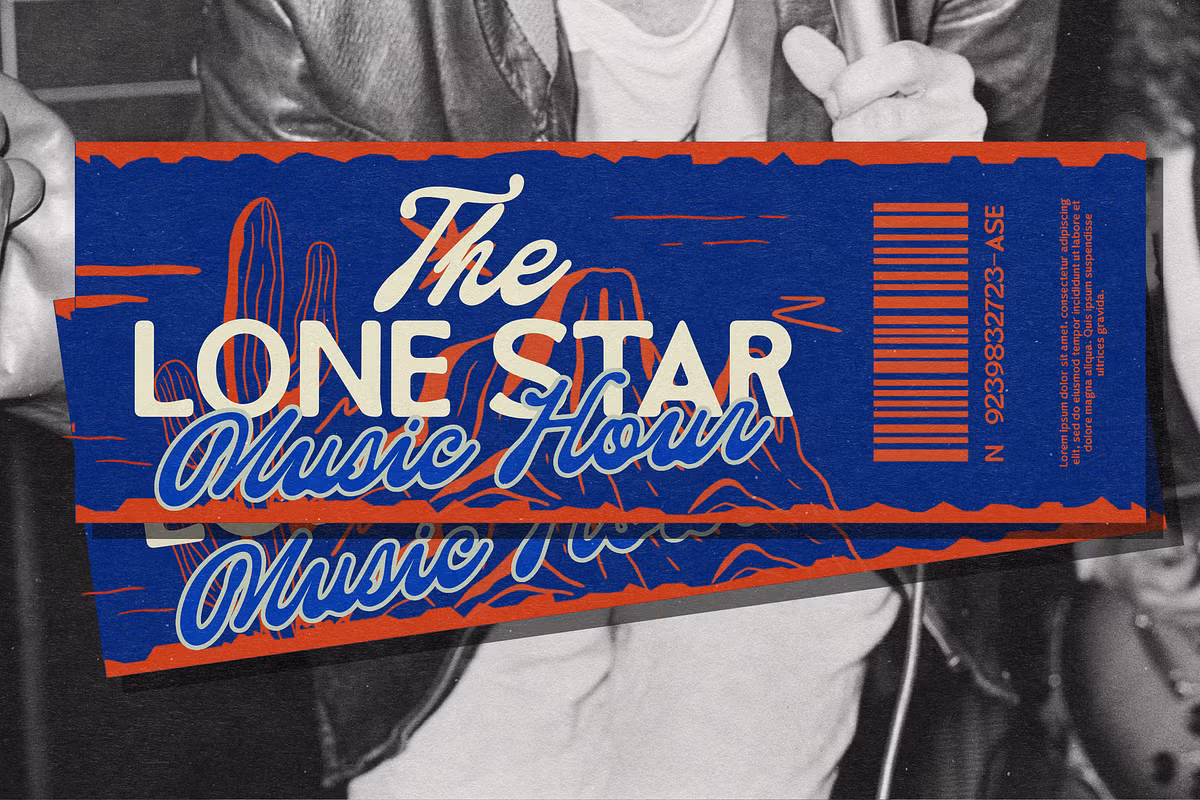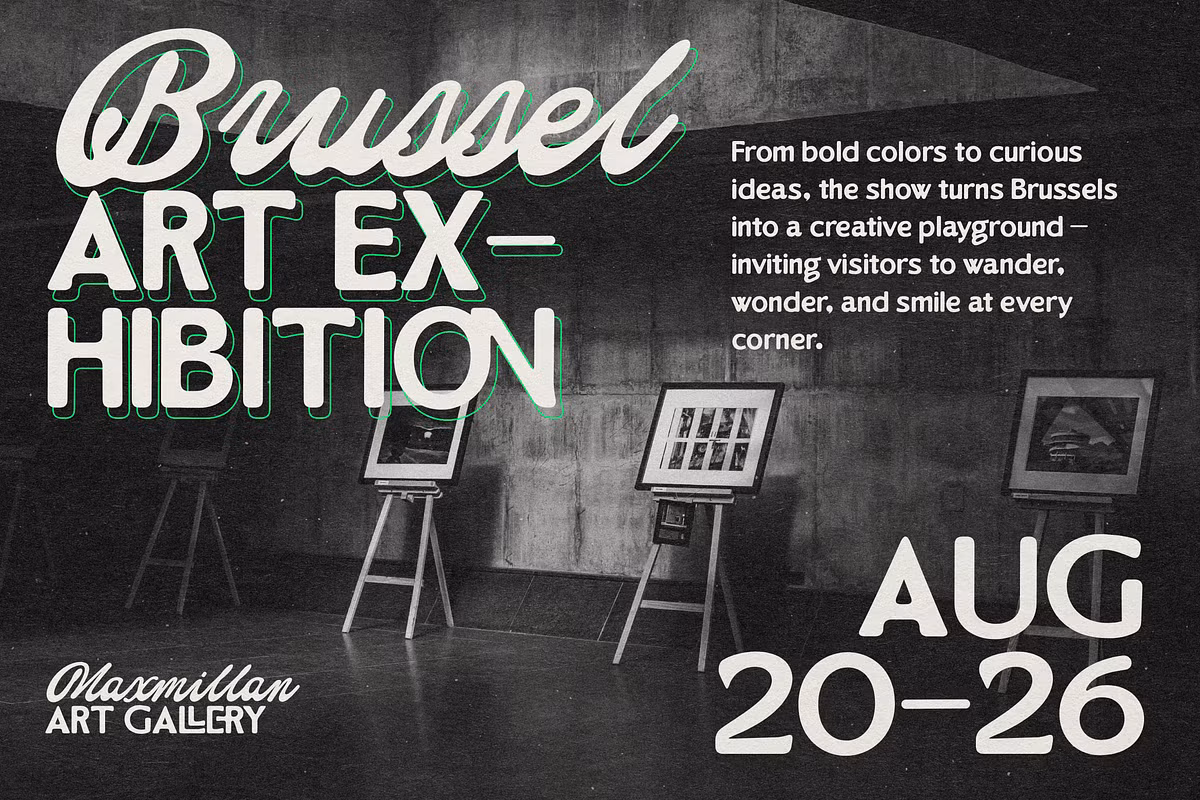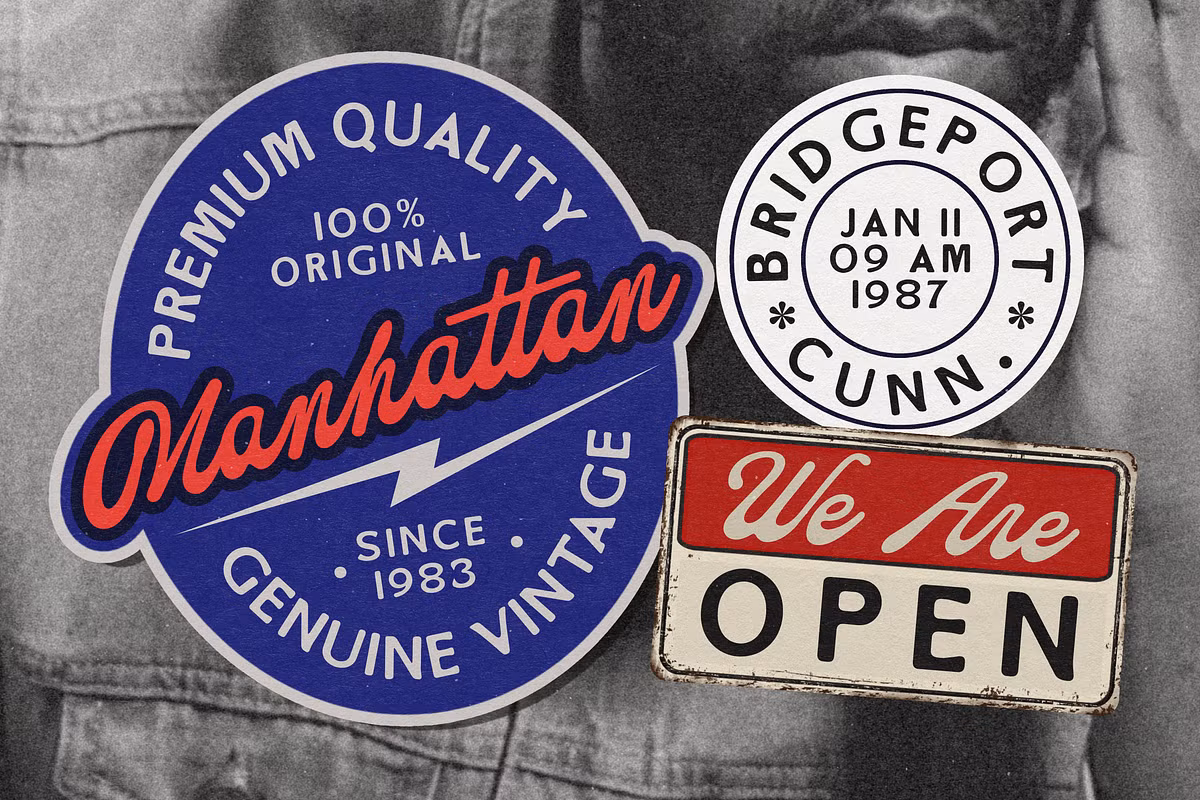
The Paris Editorial Duo: Playful Font Duo for Creative Projects
Introducing The Paris Editorial Duo. The Paris Editorial Duo is a font pair that mixes fun and elegance. The Paris Editorial Duo has two fonts: a bold rounded sans serif font and a flowing handwritten script. The Paris Editorial Duo puts the two fonts together. Makes a look that can lift any creative project. The Paris Editorial Duo fits product labels. The Paris Editorial Duo fits greeting cards. The Paris Editorial Duo fits media posts. The Paris Editorial Duo gives an professional feel.
I think the design style of The Paris Editorial Duo is modern and a little playful. The design style of The Paris Editorial Duo uses a look, with a bit of fun. The sans font is bold and round. The sans font feels friendly. The sans font works well for headlines that catch the eye and for text that grabs attention. The handwritten script adds a touch. The handwritten script makes the design feel inviting and warm. The mix of the sans font and the handwritten script gives the design style of The Paris Editorial Duo options. The design style of The Paris Editorial Duo can fit uses.
When I work with The Paris Editorial Duo I notice the sans font and the handwritten script fit each other. The clean lines of the sans font make the text easy to read. The fluid shape of the script adds character and charm. The result is a choice, for branding projects and logos when you want to show professionalism and creativity.
Character Sets and Features
One of the features of these fonts is the large character set. The Paris Editorial Sans and The Paris Editorial Script both have characters. You can make text designs with these fonts. For characters you can open the Glyph Panel, in Adobe Illustrator or the OpenType Character Panel in Adobe Photoshop. You get more choices, for your projects.
Use Cases for The Paris Editorial Duo
I find the Paris Editorial Duo works well for uses. Here are some specific ways the Paris Editorial Duo fonts can shine:
- Product Labels: The bold sans font catches the eye. The script adds a feel. I notice that Product Labels work well for food packaging and, for products.
- Greeting Cards: I think the script is playful and the sans font is clear. The script and the sans font together make Greeting Cards perfect, for messages on cards, for any occasion.
- Social Media Posts: Use the duo to make graphics that get attention in feeds. The duo blends statements, with a tone. The duo helps the graphics stand out.
- Branding Projects: When you design a logo or create brand collateral Branding Projects can show the personality of the brand. Branding Projects does this effectively.
- Quotes: The two fonts work well together for showing quotes. The quotes look good. The quotes also are easy to read and catch the eye.
When I work with The Paris Editorial Duo I think about pairing the fonts with fonts to make my designs better. Here are some suggestions:
- Complement with Geometric Fonts: I pair the sans font with typefaces. I get a modern look that is stylish and functional.
- Use with Serif Fonts: I have found that pairing the script, with the serif font adds a touch of sophistication. The playful script with the serif font works for invitations and, for high end branding.
- Mix with Minimalist Fonts: Pairing the bold sans font with minimalist typefaces can help achieve a clean and contemporary design, perfect for tech companies and startups.
The Paris Editorial Duo is a useful font pair that can improve your projects. The Paris Editorial Duo mixes the bold rounded sans font with the flowing script. The Paris Editorial Duo gives a mix of fun and serious feel. If you design product labels, greeting cards or branding materials The Paris Editorial Duo adds a look, to your work. I use The Paris Editorial Duo, for projects. Enjoy using The Paris Editorial Duo. Let your ideas grow.